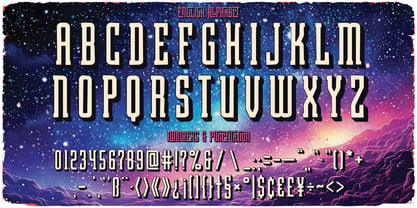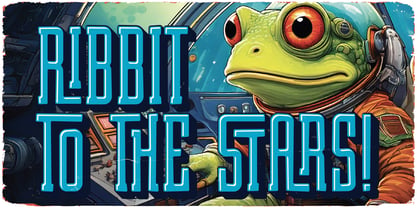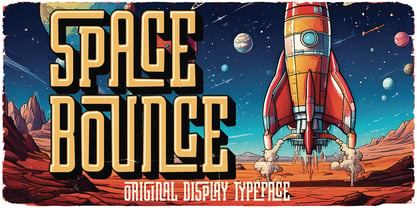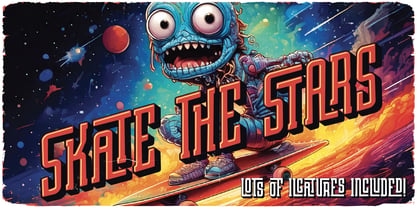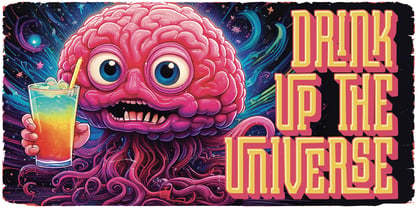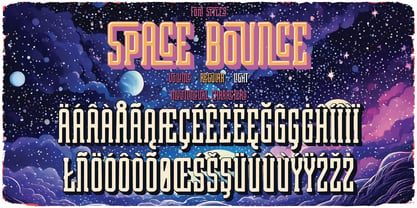
Space Bounce
by Vozzy
The Space Bounce Font Family was designed by Oleg Voznyy and published by Vozzy. Space Bounce contains 3 styles and family package options. More about this family
Introducing the captivating font "Space Bounce," designed specifically for headlines and accent inscriptions that demand attention. This unique typeface features a diverse array of additional characters, punctuation marks, and multilingual options, ensuring versatility across various languages. With a rich selection of standard ligatures, this font enhances readability and visual appeal—just ensure your software supports these OpenType features. Perfect for branding, web design, and editorial projects, "Space Bounce" will elevate your creative designs and make a striking impact!